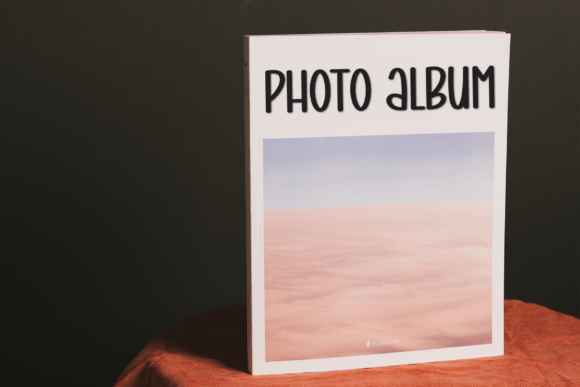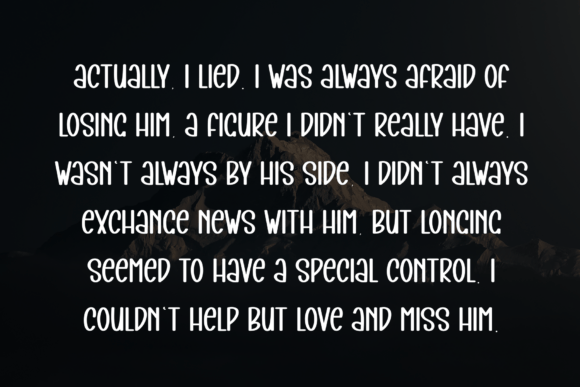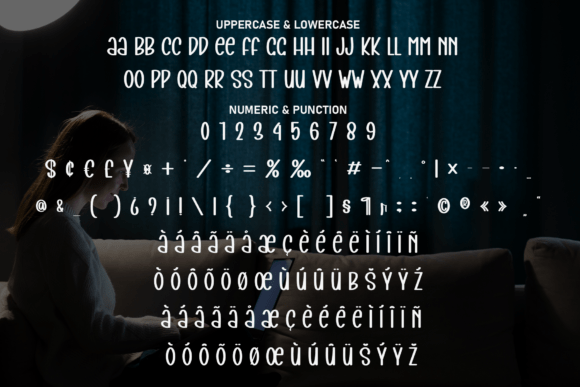
Introduction to Home Midnight Font
As a designer, you know that sometimes the perfect font can make all the difference in bringing your creative vision to life. Remember that one project where you spent hours scouring through font libraries, only to find the perfect one at midnight? For those late-night design sessions, we’ve got just the thing – the Home Midnight Font. This delightful display font is the epitome of summer vibes, radiating fun and relaxation with its clean lines and easygoing charm.
Perfect for summer posters, event flyers, and playful branding, the Home Midnight Font is a valuable addition to any designer’s toolkit. Whether you’re working on a high-quality design project or simply need a fun font to spice up your social media graphics, this font has got you covered. Plus, with a transparent background, you can easily overlay it on any image or background, making it a versatile design resource that’s sure to elevate your creative project.
Key Features of Home Midnight Font
- Unique, elegant font with a transparent background, perfect for backgrounds or overlays.
- Designed to evoke a sense of warmth and coziness, making it perfect for home-related projects, such as interior design, real estate, or hospitality.
- Features a modern, minimalist aesthetic, making it suitable for a wide range of creative projects, from logos to signage.
Honest Review: Home Midnight Font
Here are a few things that work well: ✨ The font’s versatility makes it perfect for a wide range of creative projects, from logos to brochures. ✨ The transparent background is also a nice touch, making it easy to integrate with any design. ✨ The font’s clean and modern design makes it perfect for contemporary designs.
However, there are a few limitations to consider: ⚠️ The font’s limited character set might be a problem for designers who need to work with special characters or languages. ⚠️ The font’s weight might not be suitable for designs that require a lot of bold text.
Overall, I’m really impressed with the Home Midnight Font. It’s a high-quality design resource that’s perfect for a wide range of creative projects. With a little creativity, the font’s limitations can be easily worked around.
- Perfect for: logos, brochures, contemporary designs
- Great for: designers who need a high-quality, modern font
- Not ideal for: designers who need a font with a large character set or bold text
Design Tips and Common Use Cases
For a high-quality design, use the Home Midnight Font with a transparent background to create a beautiful and elegant look. Use it for your creative project, such as a logo, brochure, or social media graphics. You can also use it for web design, particularly for headings and titles. Additionally, you can use it for presentations, such as PowerPoint and Google Slides.
Yes, Home Midnight Font is a high-quality design resource that is carefully crafted to provide a unique and stylish look for your creative project. The font features a modern and sleek design, making it perfect for a wide range of applications, from branding and marketing to digital design and print materials.